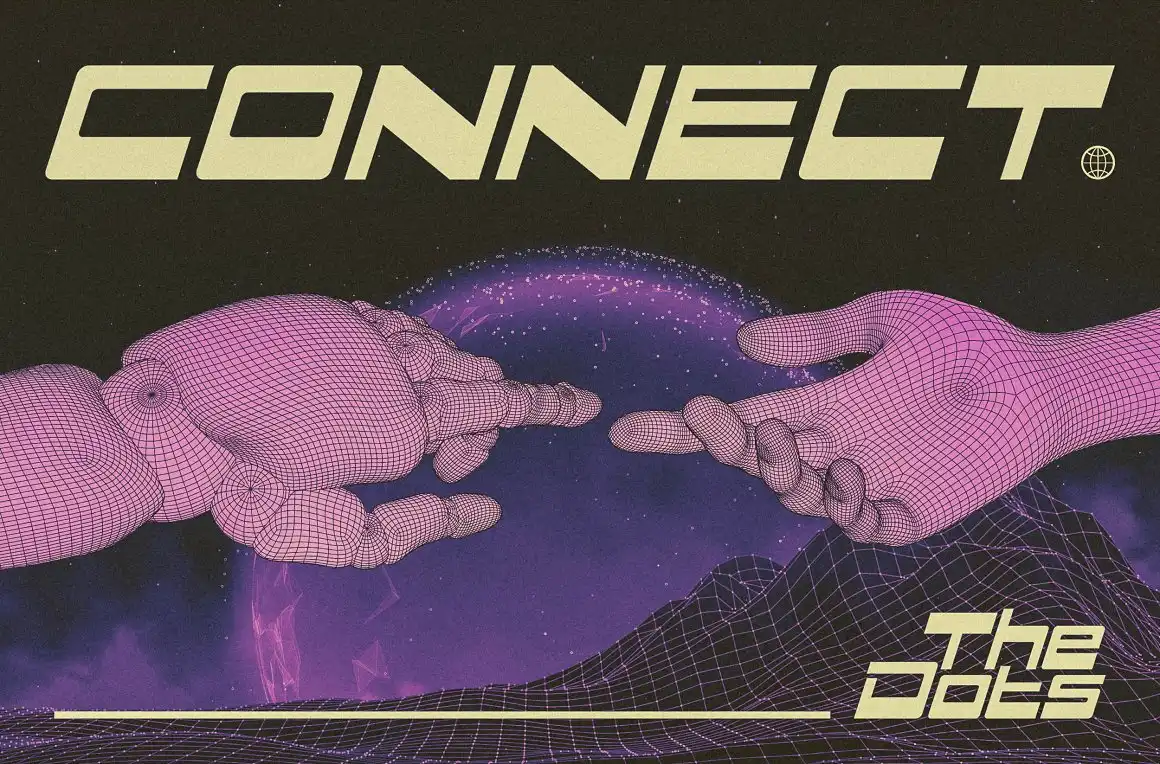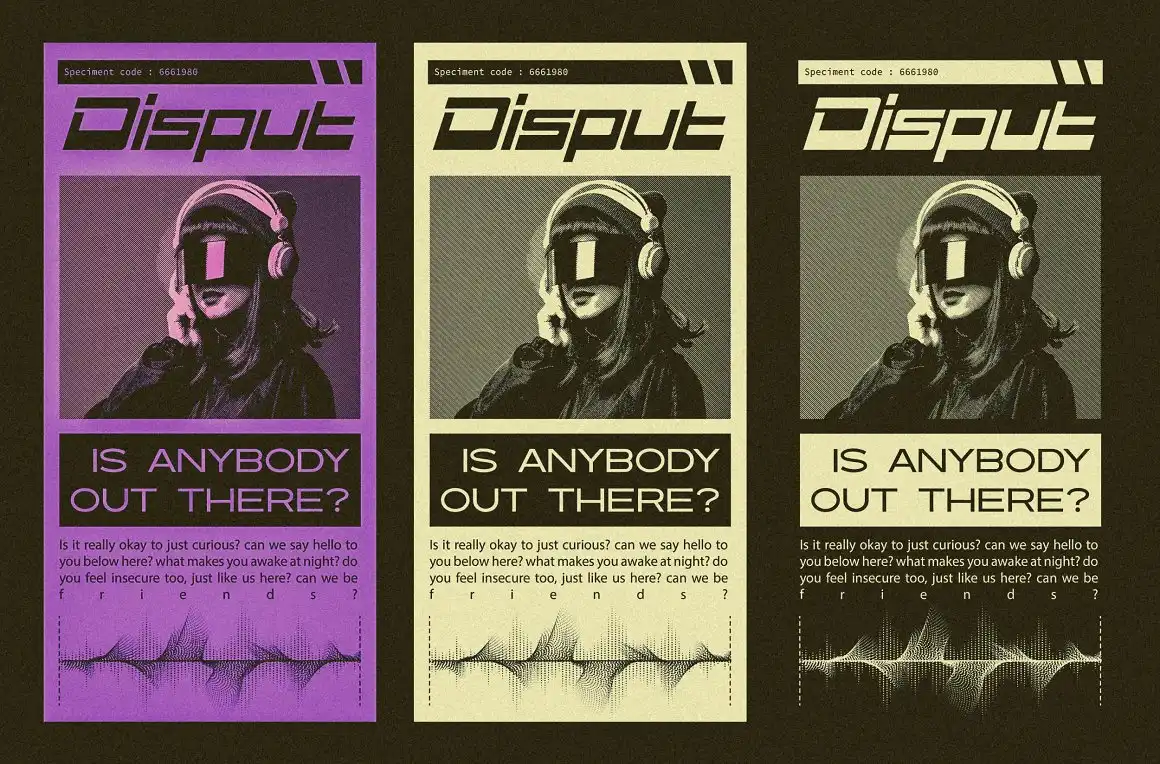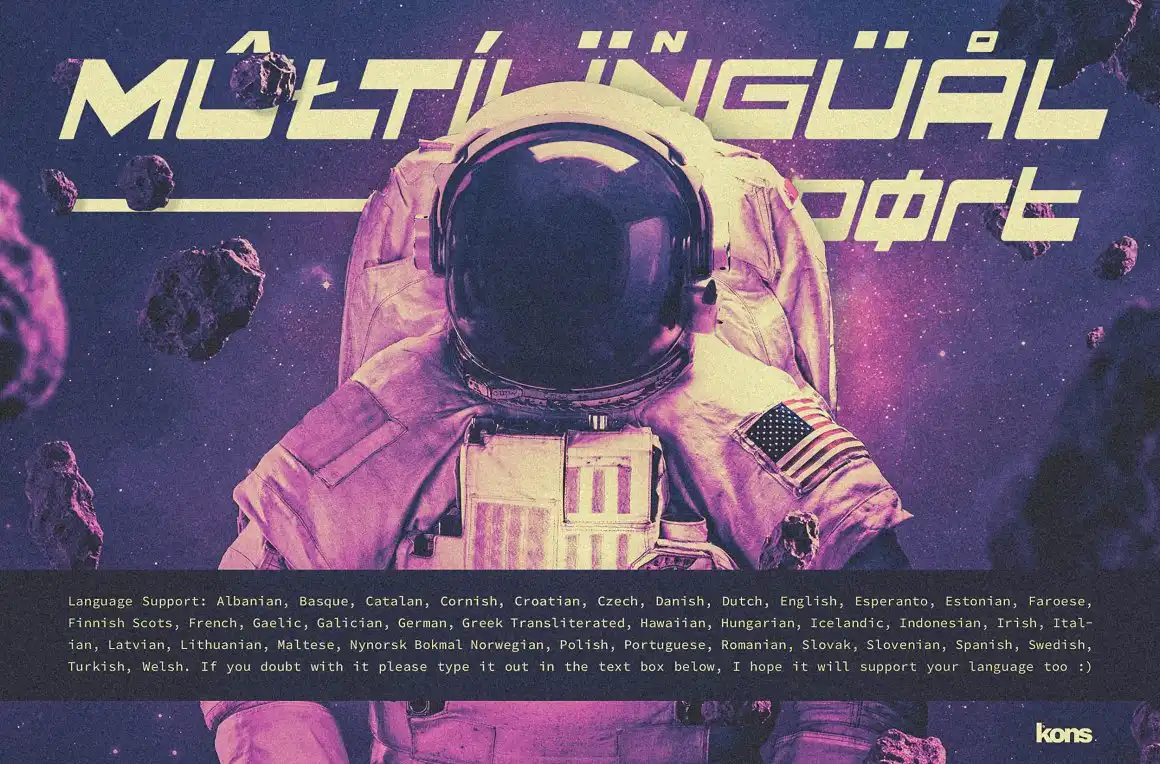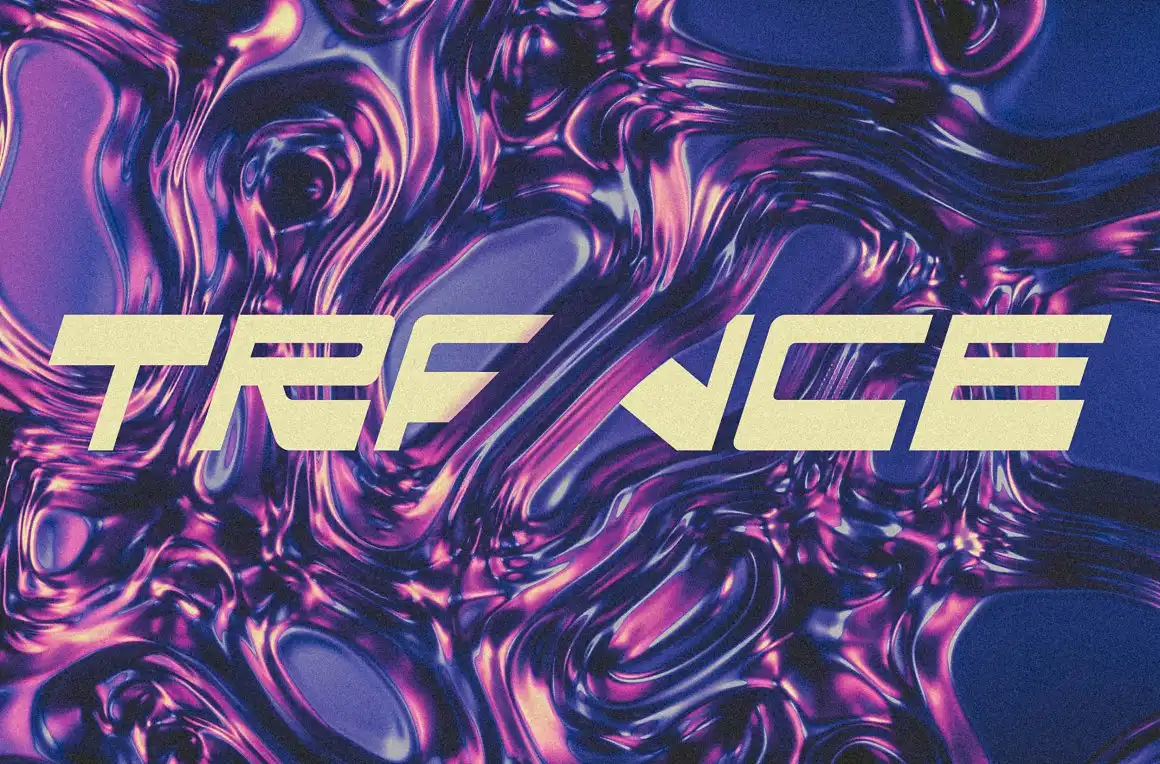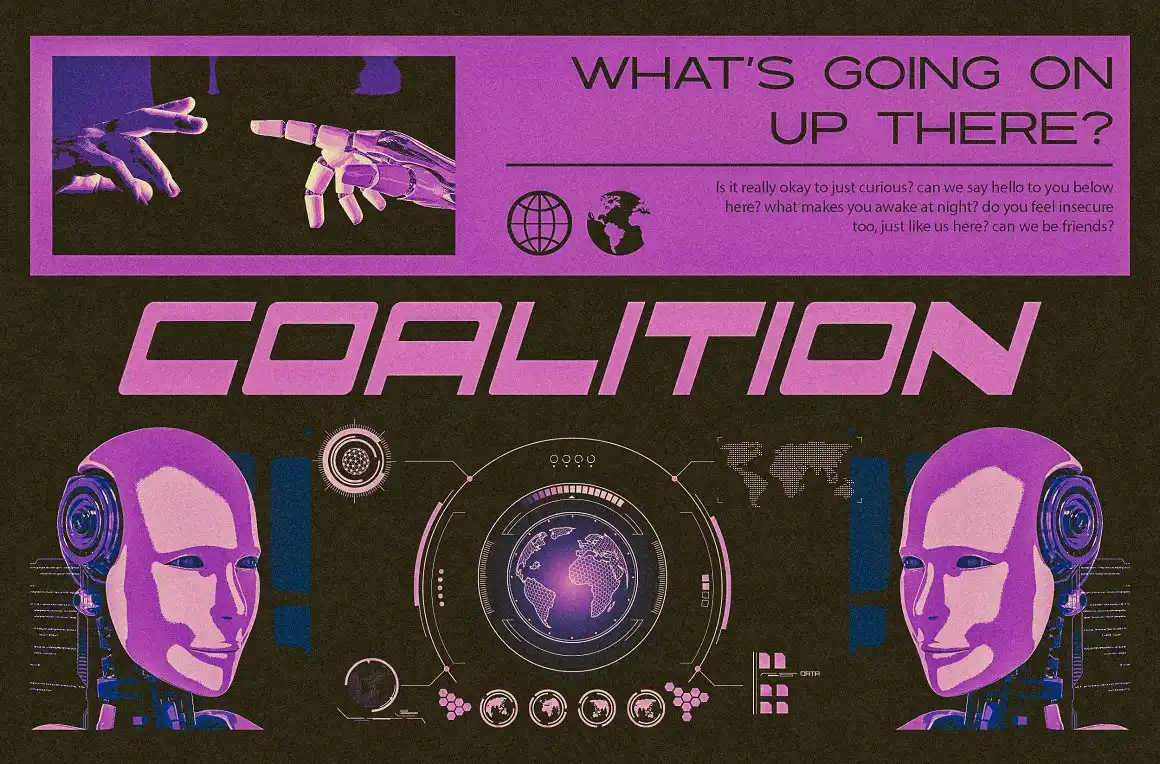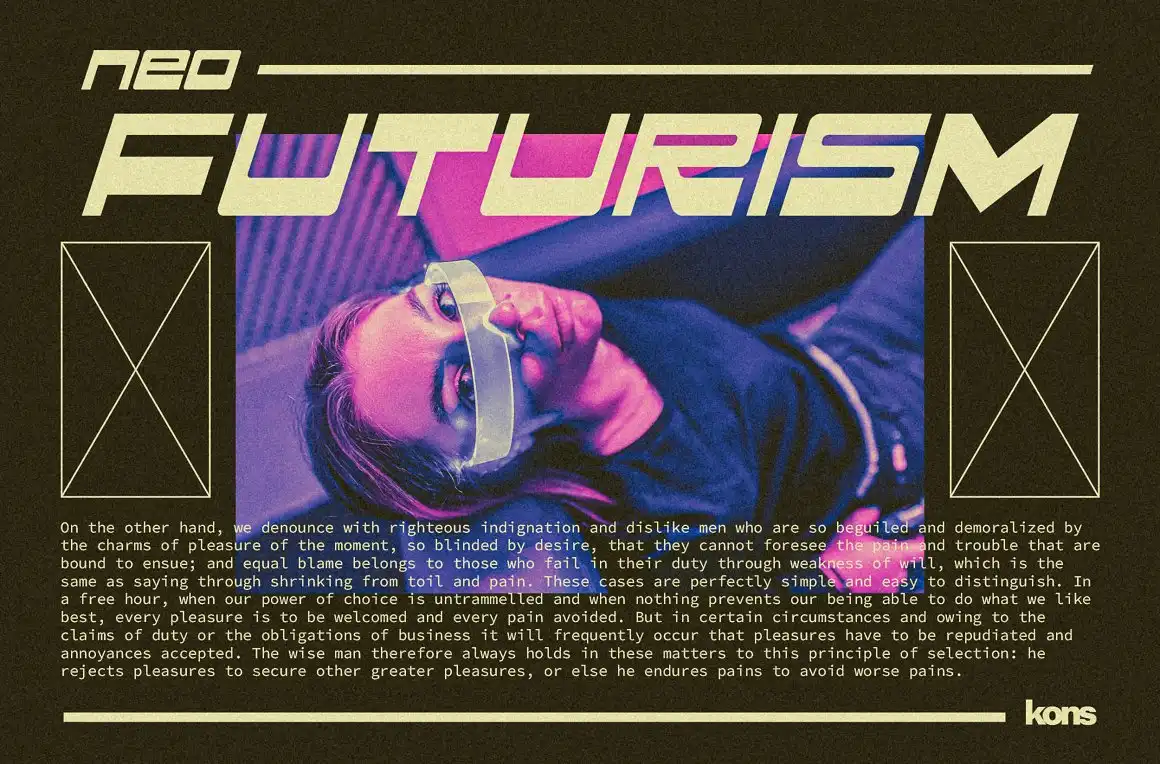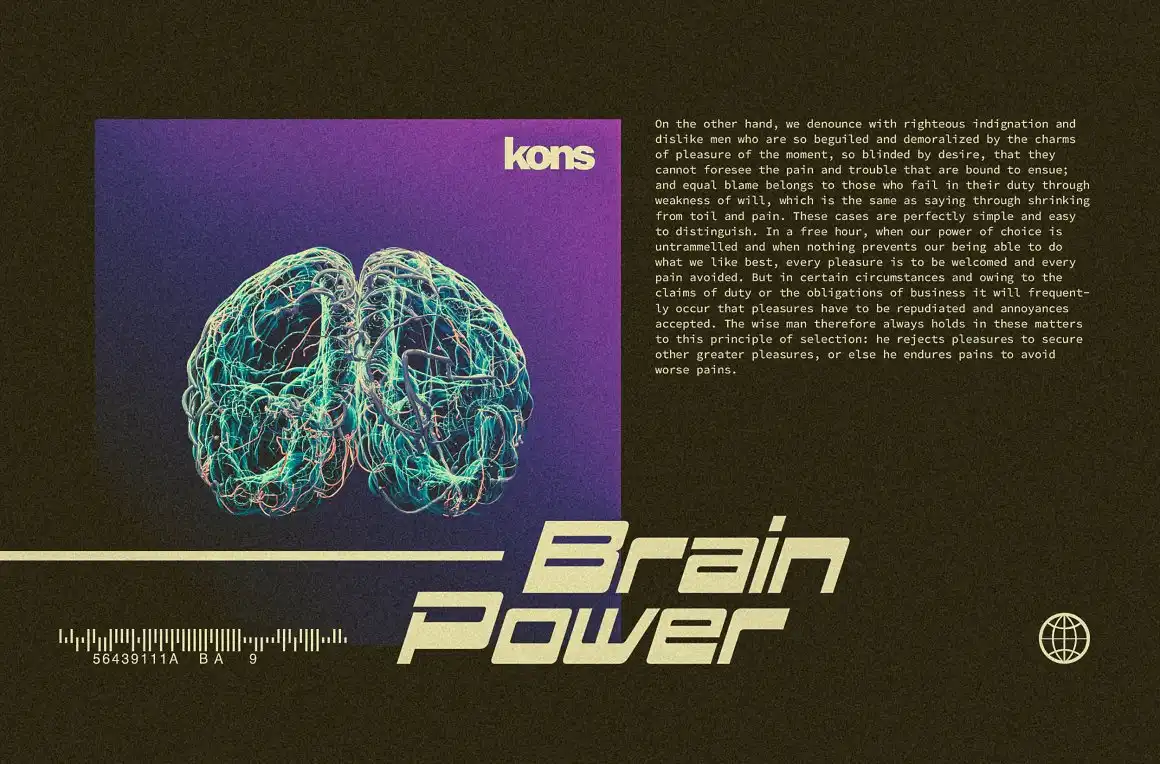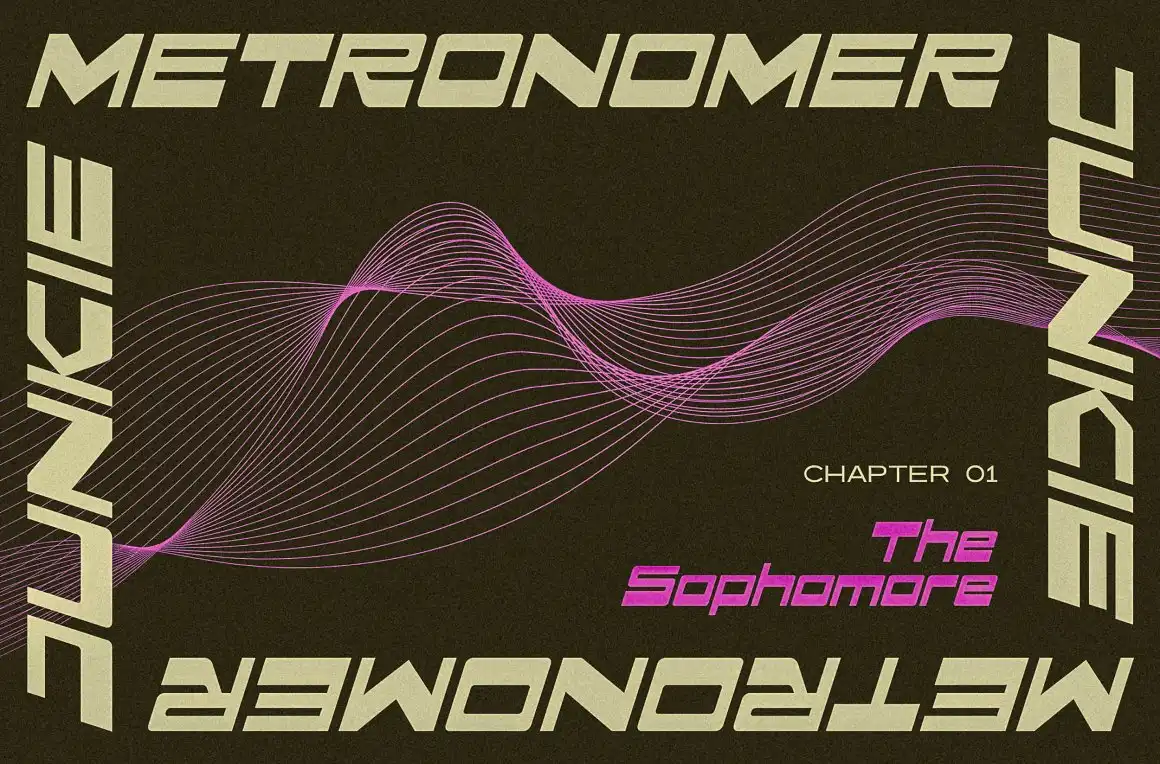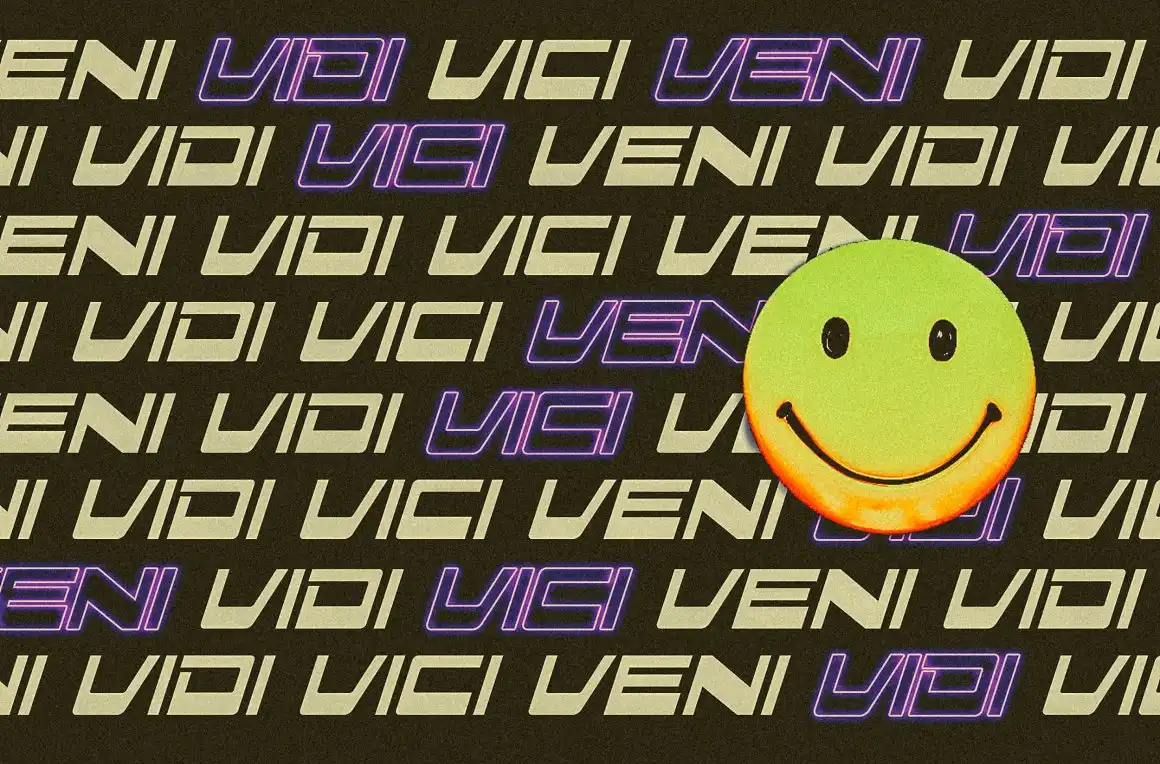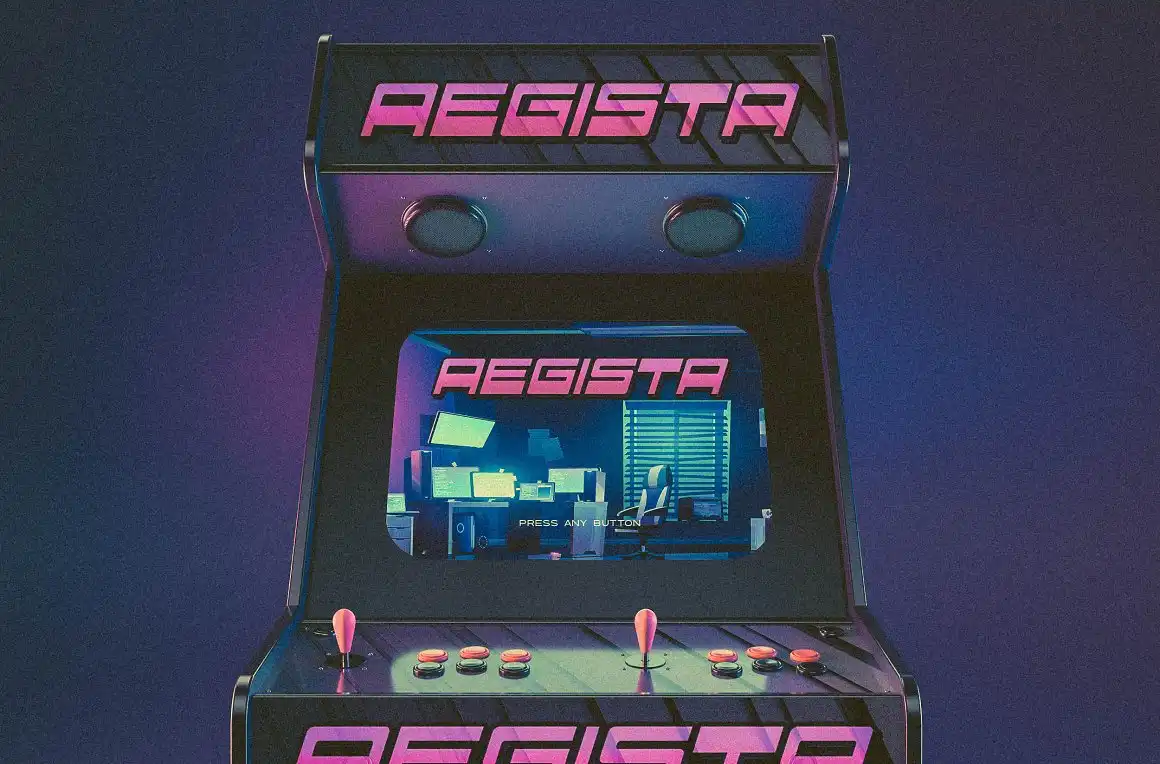
Welcome to the Future with Discopia – Futuristic Tech Fonts!
Say hello to Discopia, a stunning digital download that brings the essence of futuristic disco to your creative projects! 🎉 With instant access, you can dive right into a world of innovative design.
Discopia is a captivating collection of fonts inspired by the vibrant aesthetics of futuristic and techno-based designs. Perfect for any creative endeavor, this font pack will elevate your projects with a modern flair and a touch of retro nostalgia! 🌌
- Unique Design: The Discopia font offers a fresh take on typography, making your branding stand out in a crowded marketplace.
- Versatile Usage: Ideal for gaming logos, digital assets, UI/UX design, and more, ensuring your work is always on-trend.
This font pack is a fantastic choice for:
- Graphic Designers
- Game Developers
- Brand Strategists
- UI/UX Designers
- Fashion and Tech Enthusiasts